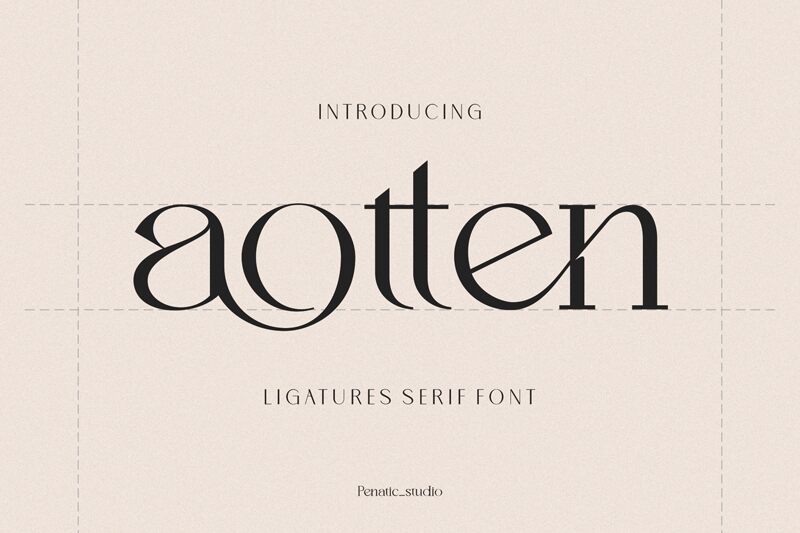
Aotten
Aotten font, crafted by Penatic Studio, is a captivating serif typeface that exudes elegance and sophistication. Its distinctive character is highlighted by an expanded font style, creating a striking visual impact with wide-stretched letters that elevate any design. This aesthetic appeal makes Aotten ideal for projects requiring a blend of classic charm and modern flair.
Perfect for editorial layouts, branding, and web design, Aotten offers versatility as both a display font and body text option. Its unique characteristics stand out in headlines while maintaining readability in extended text. As a free font available for download, designers can effortlessly enhance their creative projects with Aotten’s timeless yet contemporary style-a must-have addition to any typeface collection seeking to make an impression. Whether for print or digital media, the Aotten font promises to deliver unmatched style and functionality.